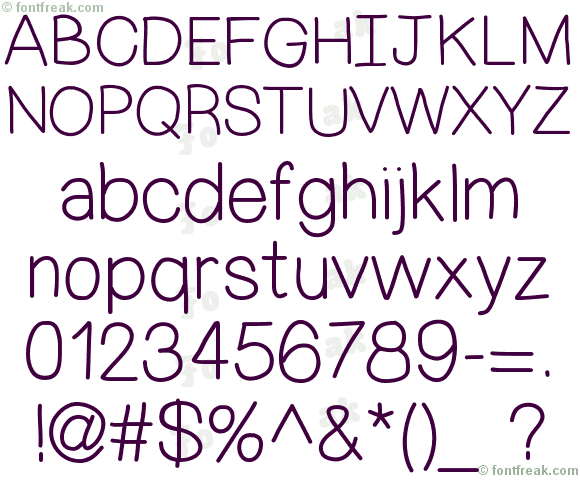
MixDemiSans
About MixDemiSans
MixDemiSans, designed by Mikko Sumulong, is a versatile sans-serif font that blends modern aesthetics with functionality. This font features a balanced stroke weight, providing a clean and contemporary appearance that is both approachable and professional. The uniformity in spacing enhances readability, making it an excellent choice for various applications. Its subtle yet distinct characteristics allow it to stand out without overwhelming the viewer, making it ideal for both digital and print formats.
The MixDemiSans font is particularly well-suited for an array of specific use cases. Graphic designers might find it perfect for creating eye-catching branding materials or sleek business cards. Small business owners can use it for restaurant menus or promotional flyers, giving their materials a polished look. Content creators can employ this font in social media graphics or website headers, where clarity and style are paramount. Additionally, it works wonderfully for event posters, lending a modern touch that attracts attention.
The target audience for MixDemiSans includes graphic designers, small business owners, and content creators who seek a font that embodies both modernity and versatility. The font's clean lines and straightforward design make it appealing to those looking to convey professionalism and creativity in their projects.
What sets MixDemiSans apart is its ability to adapt to various design contexts while maintaining a sense of identity. Its free availability as a freeware license makes it accessible to everyone, encouraging creativity without the burden of cost. Whether you are designing for print or digital media, the MixDemiSans font free download offers an exceptional resource for elevating your projects and ensuring that your message is communicated effectively.